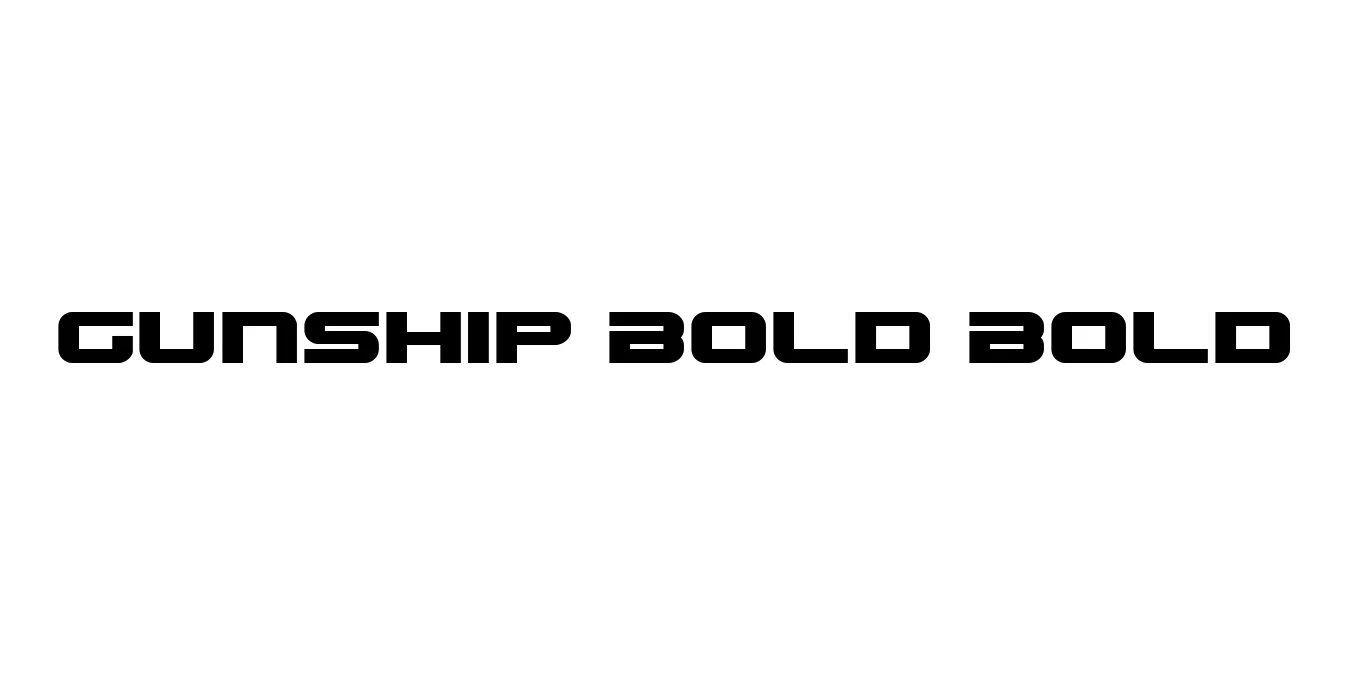
Gunship Bold Bold
Designed by Iconian Fonts (Dan Zadorozny)
| Category | Techno Sans-Serif |
Gunship Bold Bold is a cornerstone of the expansive Gunship family, a series of typefaces developed by Dan Zadorozny that bridges the gap between mid-century military stencil work and futuristic science fiction aesthetics. Originally inspired by the utilitarian markings found on tactical hardware and aerospace machinery, this specific weight was engineered to provide a sense of armored durability. Its history is rooted in the early 2000s digital font movement, where it quickly became a favorite for independent game developers and graphic designers seeking a typeface that evokes authority and high-tech precision.
From a technical standpoint, Gunship Bold Bold exhibits an exceptionally heavy visual weight with a wide, expansive stance that prioritizes horizontal presence over verticality. The letterforms feature a relatively low x-height, which, when combined with its thick, monolithic strokes, creates a dense and impenetrable typographic texture. The counters are significantly compressed, and the terminals are clipped with sharp, geometric angles that minimize white space within the glyph. While this density restricts legibility at small sizes, it provides unparalleled impact for display applications, requiring generous letter-spacing to maintain clarity in high-resolution environments.
Gunship Bold Bold Best Uses
Optimized for futuristic HUDs, mission titles, and loading screens.
Highly effective for science fiction and action movie posters.
Suited for logos in the aerospace, defense, or high-tech manufacturing sectors.